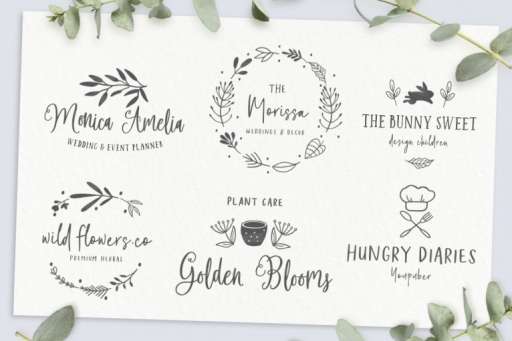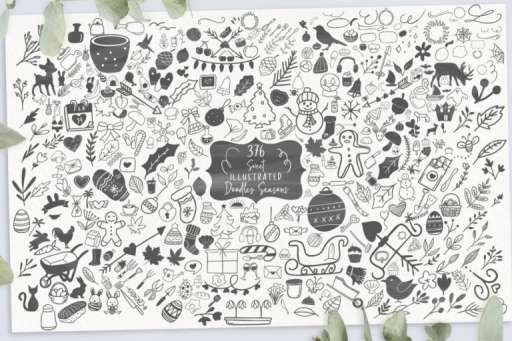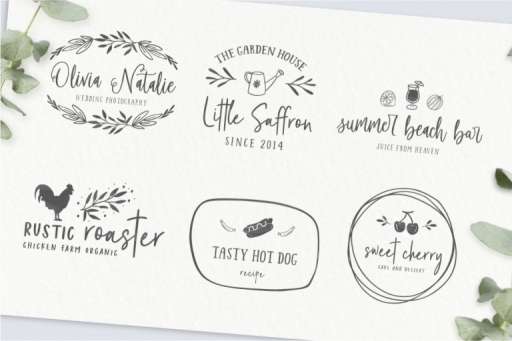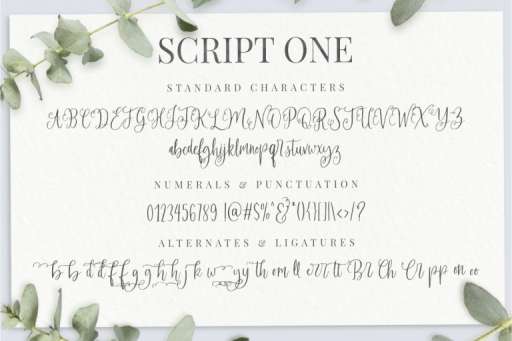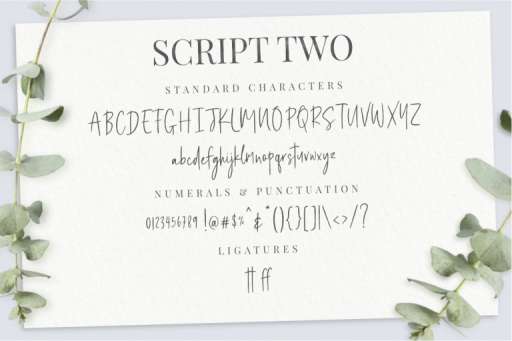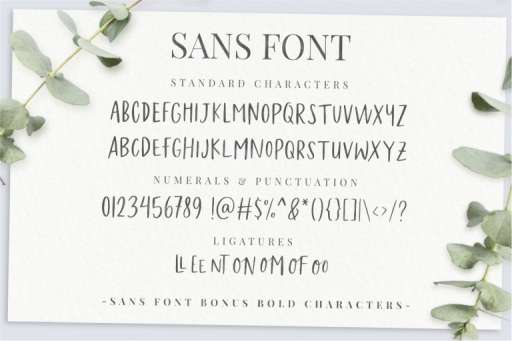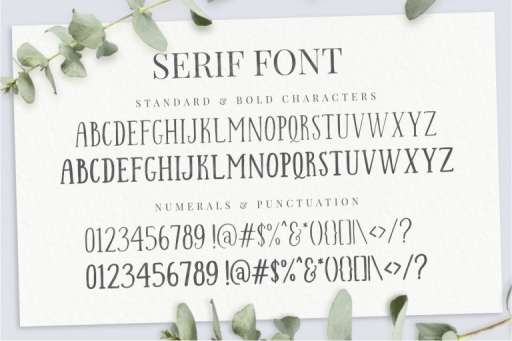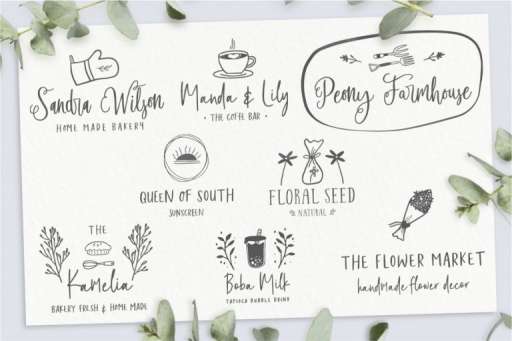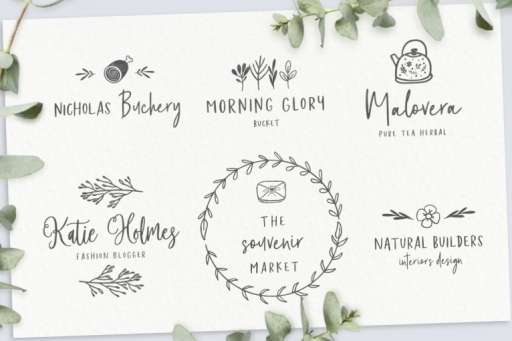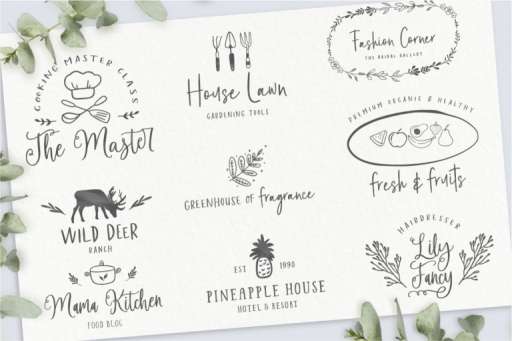
Felichiya Collection Font - Premade Logo Framhouse Theme
Felichiya Collection Script One
Felichiya Collection Script Two
Felichiya Collection Sans
Felichiya Collection Sans Bold
Felichiya Collection Serif
Felichiya Collection Serif Bold
Felichiya Collection Doodles One
Felichiya Collection Doodles Two
Felichiya Collection Doodles Three
Felichiya Collection Doodles Four
Felichiya Collection – Lovely and Organic Font
Felichiya Collection Font Four, this is beautiful font four with doodles which can be mixed like milk and cereal. We also make 376 vectors and 35 pre-designed logo templates, very easy to use.
Felichiya Collection Features :
• Alternates
• Multilingual